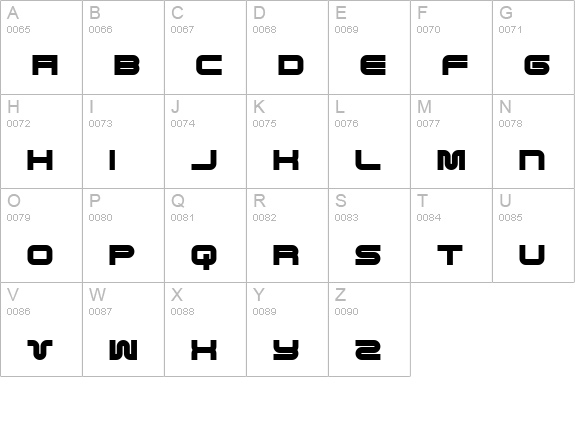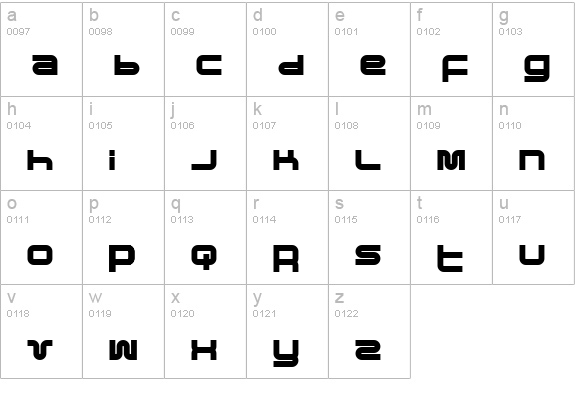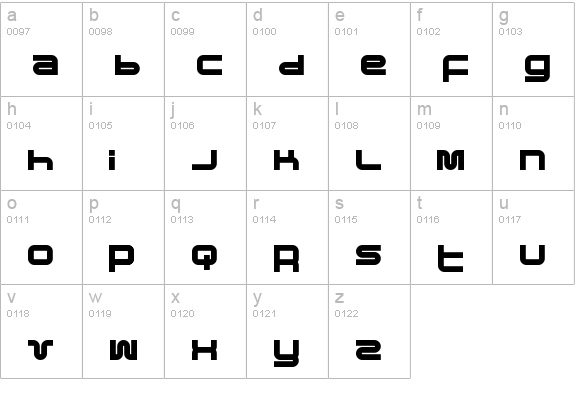
Pfuk Bold is a strong, high-contrast variant in the Pfuk typeface family \xE2\x80\x94 well suited to headlines, attention-grabbing titles, and strong calls-to-action.
Introducing Pfuk Bold, a striking and versatile font that commands attention with its bold and confident presence. This typeface exudes a sense of power and authority, making it perfect for headlines, logos, and other impactful design projects. Pfuk Bold features clean lines and sharp edges, giving it a modern and contemporary feel. Its bold weight ensures maximum legibility, even at smaller sizes, making it ideal for both print and digital applications. Whether you're designing a poster, website, or branding materials, this font will make a bold and lasting impression. But what sets Pfuk Bold apart is not just its exceptional design, but also its accessibility. This font is freely available to download at FontsMarket.com, allowing designers and creatives of all backgrounds to easily incorporate it into their projects. With just a few clicks, you can unleash the power of Pfuk Bold and elevate your designs to new heights. With its free availability, Pfuk Bold offers a rare combination of quality and accessibility. Whether you're a professional designer or a hobbyist, this font is a valuable addition to your toolkit. So why wait? Download Pfuk Bold today and add a touch of boldness and sophistication to your next design endeavor.